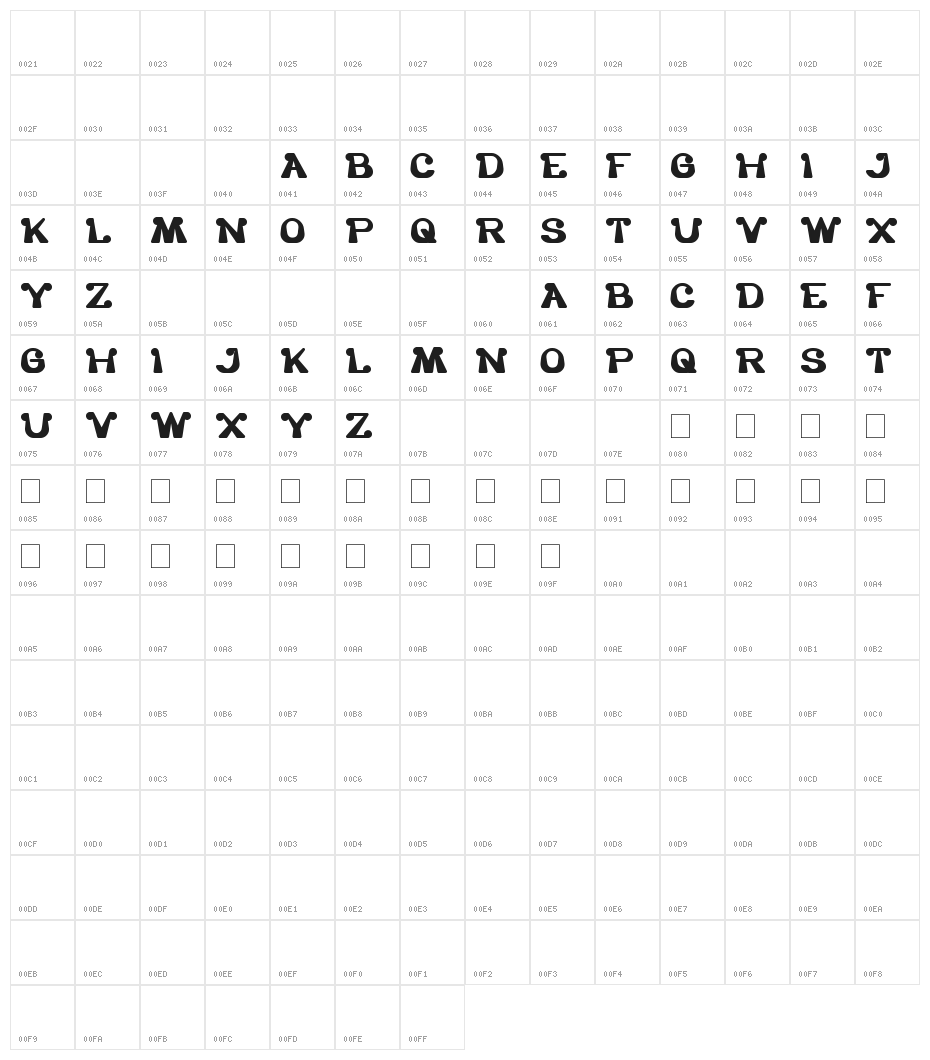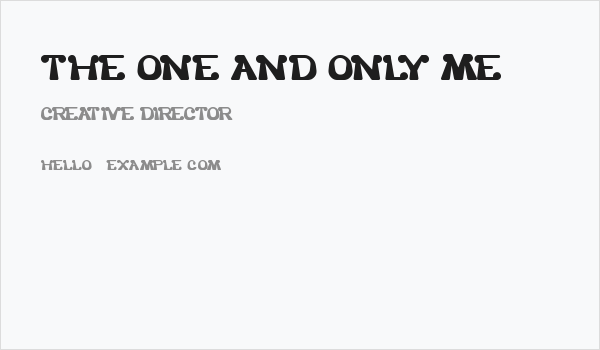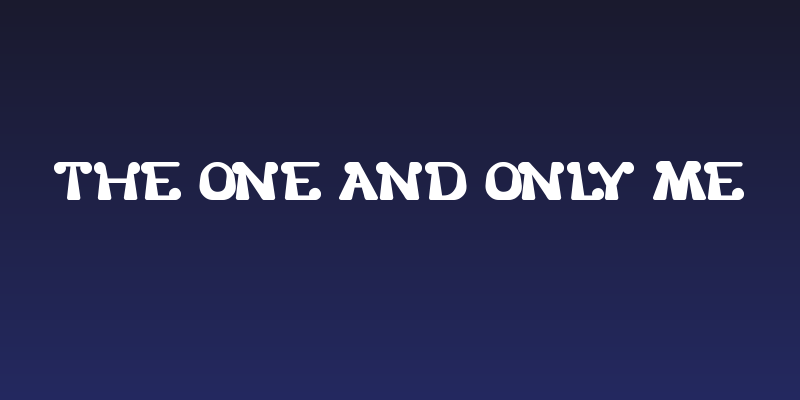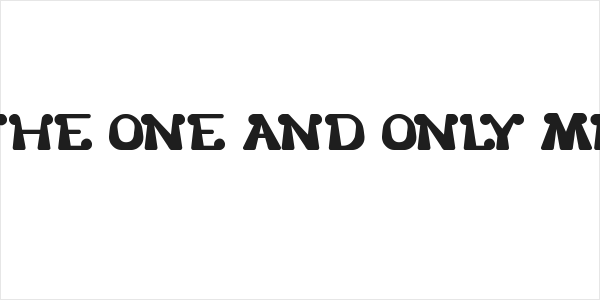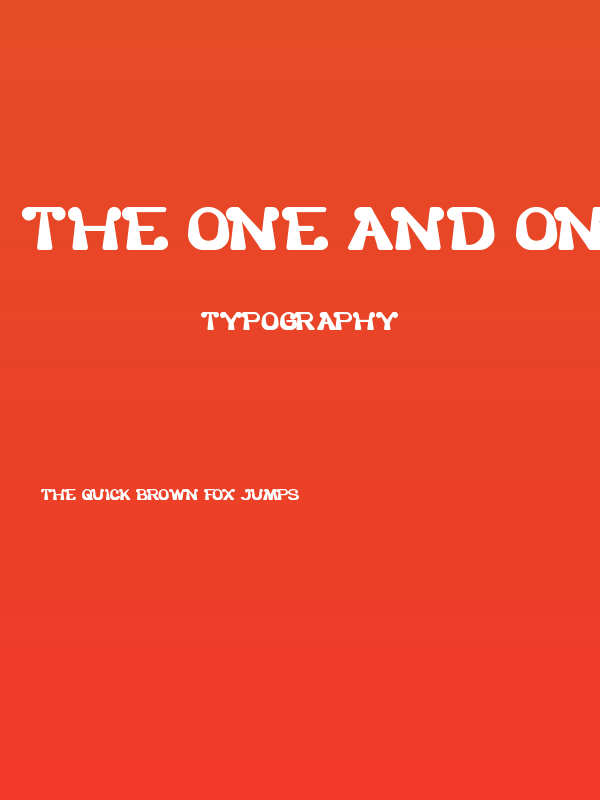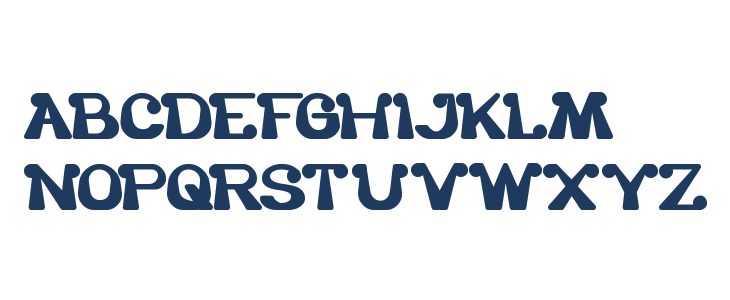
THE ONE AND ONLY ME Font
THE ONE AND ONLY ME Description
This font features a bold and playful design with thick, rounded strokes and unique, decorative elements on each character. The uppercase letters are uniform in height, with a consistent width that gives a balanced appearance. The style is reminiscent of retro or vintage themes, with a touch of whimsy due to the exaggerated serifs and rounded terminals. The font's boldness makes it highly legible, even at smaller sizes, while the decorative aspects add a distinctive flair. It is suitable for projects that require a fun and engaging typeface, such as children's books, posters, or branding for creative industries.
| Overall Style | Vintage, Decorative |
| Proposed Projects | Ideal for children's books, posters, branding for creative industries, and retro-themed designs. |